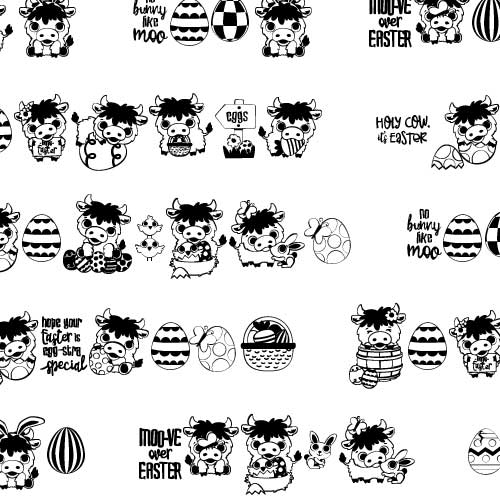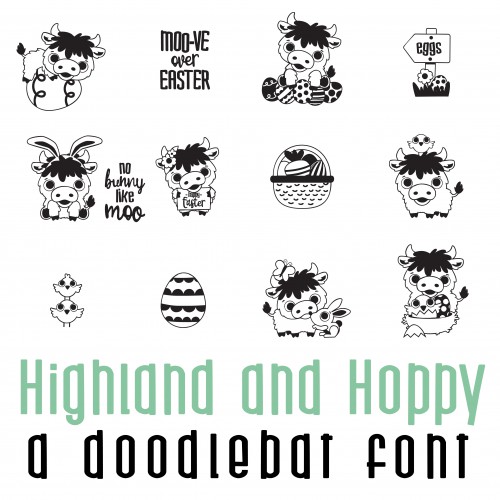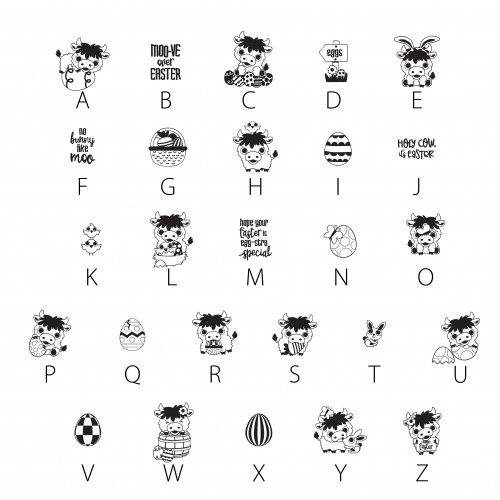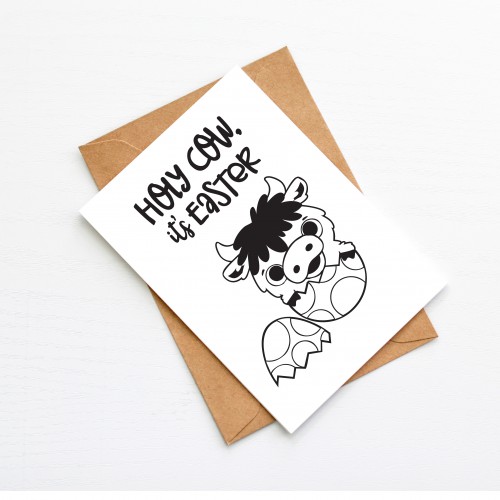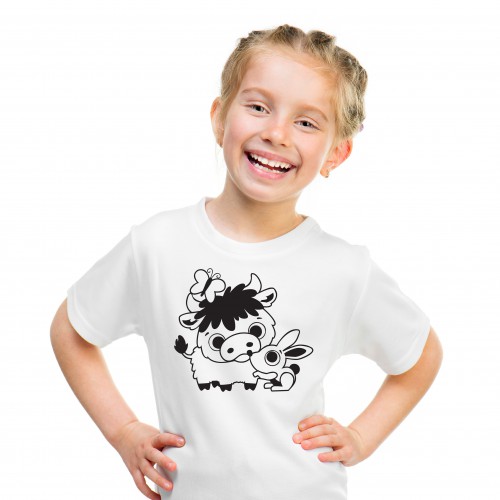
DB Highland and Hoppy - DB
This adorable doodlebat font features 26 cutie highland cows ready for Easter. Perfect for cards, crafts, gifts, planner stickers, decor, classrooms and more!